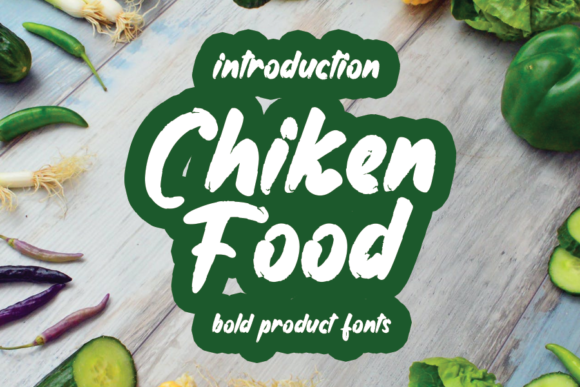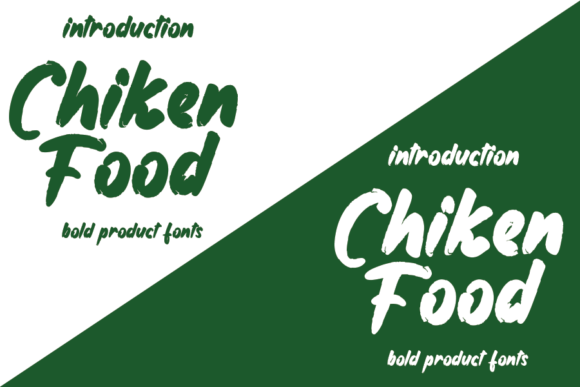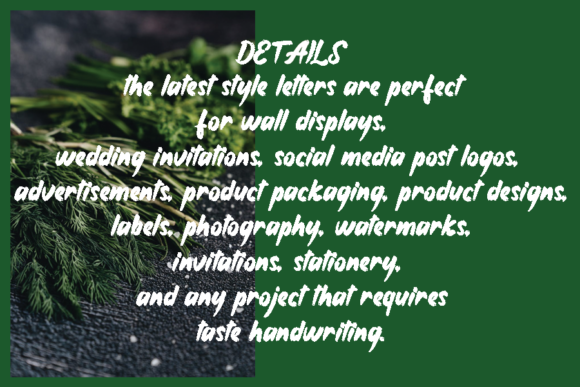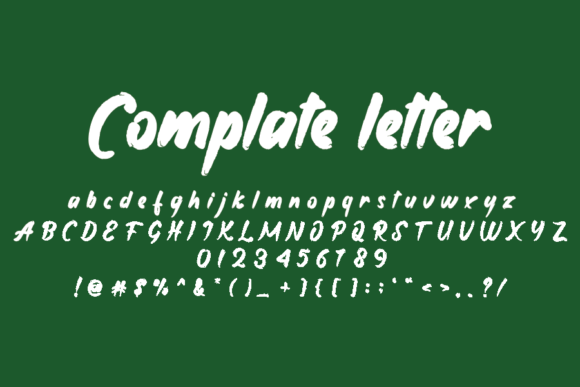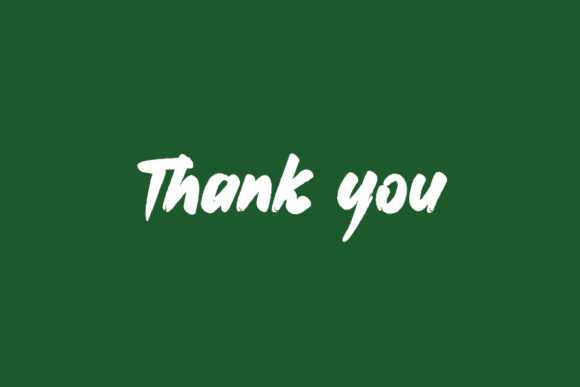
Chiken Food Font
About Chiken Food Font
Chiken Food is a sweet and flowing handwritten font, designed with the help of a brush pen. It will look outstanding in any context, whether it’s being used on busy backgrounds or as a standalone headline!